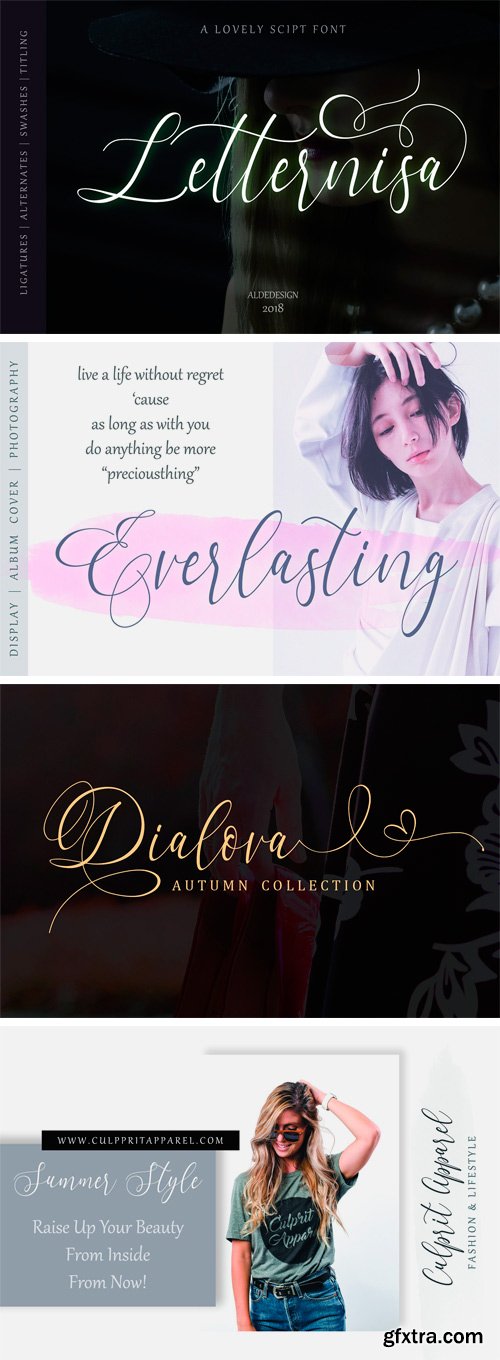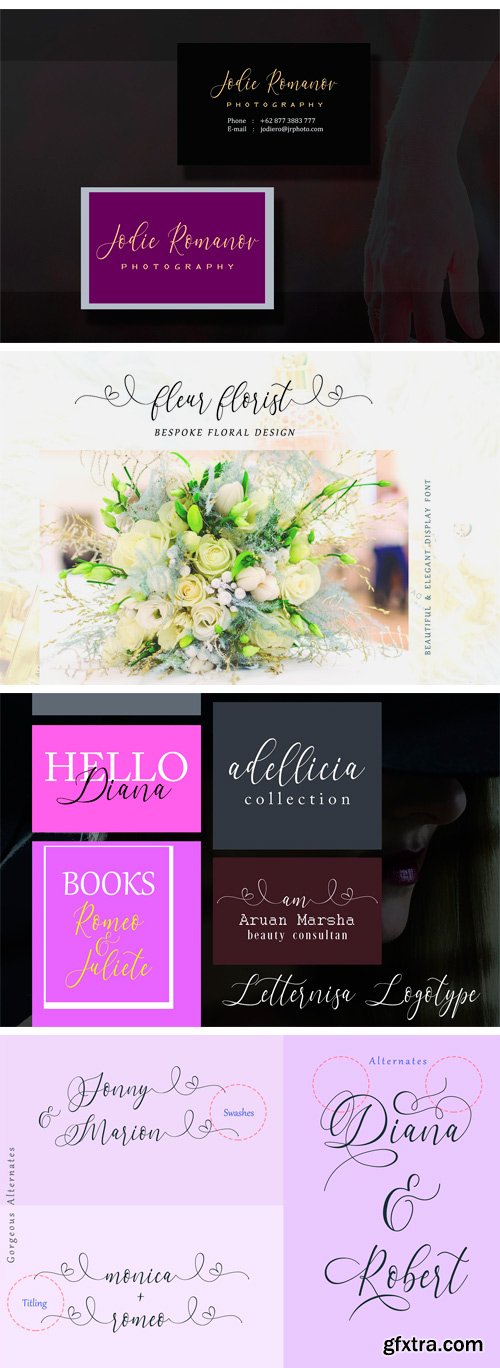
Hello font lovers, let me introduce our newest script font, we called Letternisa - Beautiful Script. This is a stylish script font with gorgeous swash, titling, and alternates. This font also easy to use. and has touch of elegance and modernity for your designs or branding, it can be used for various purposes such as headings, signature, logos, wedding invitation, t-shirt, letterhead, signage, lable, news, posters, badges etc.